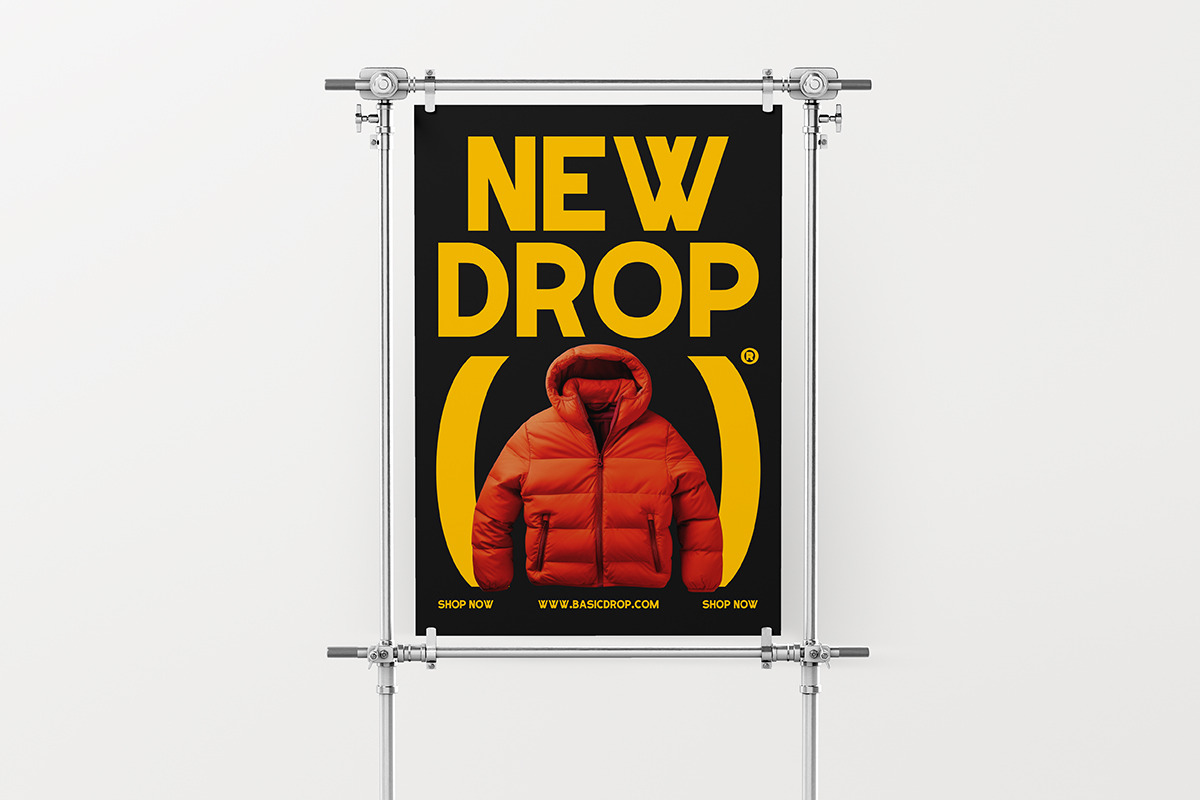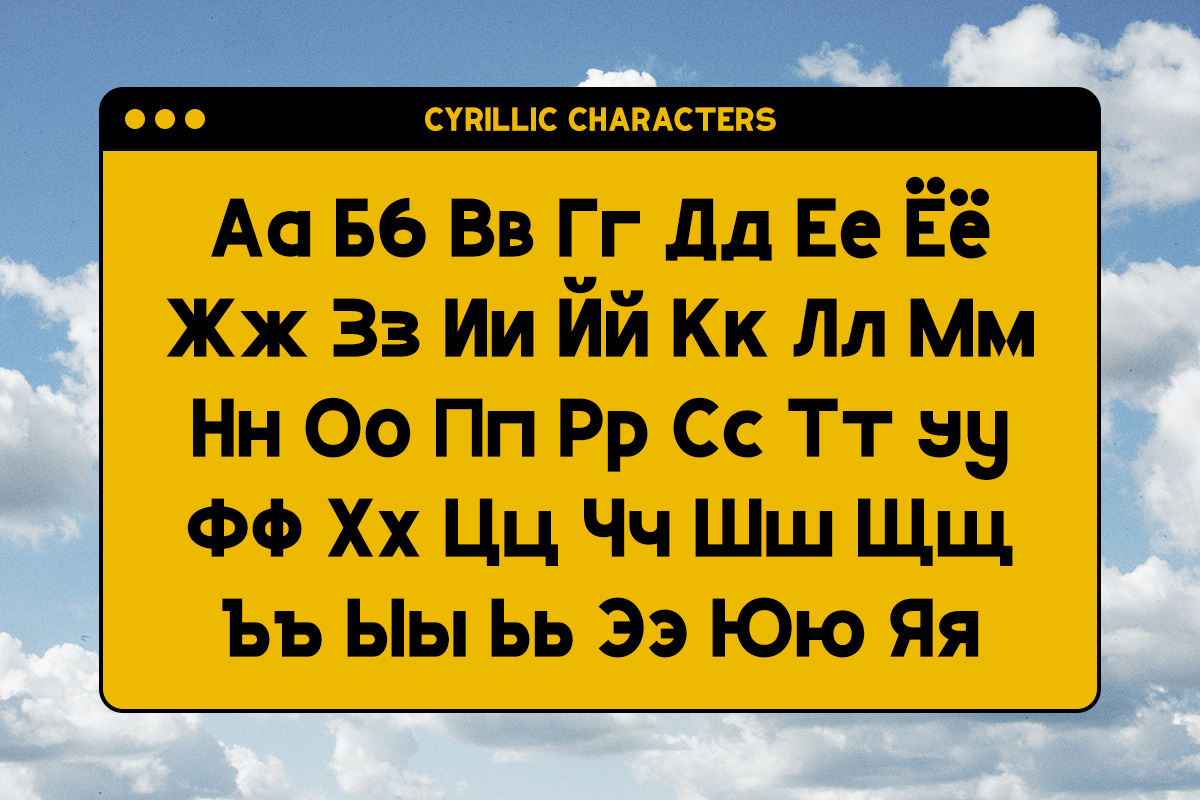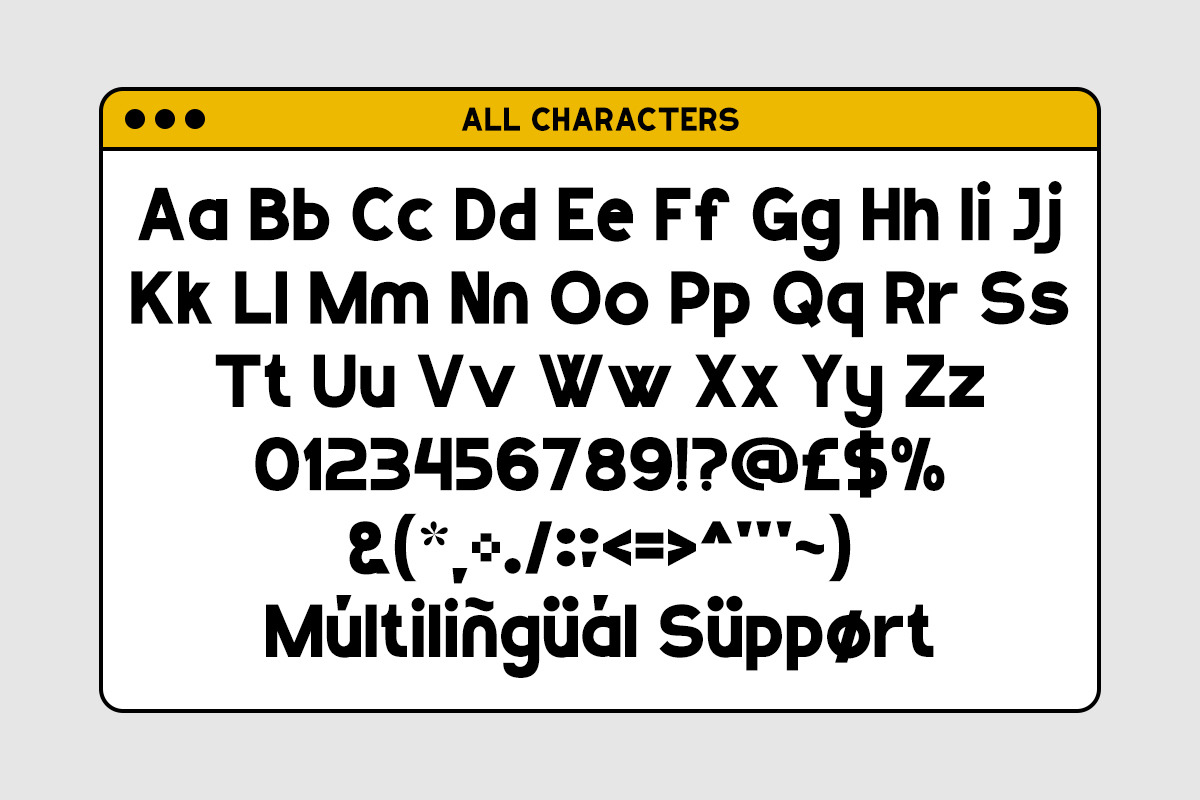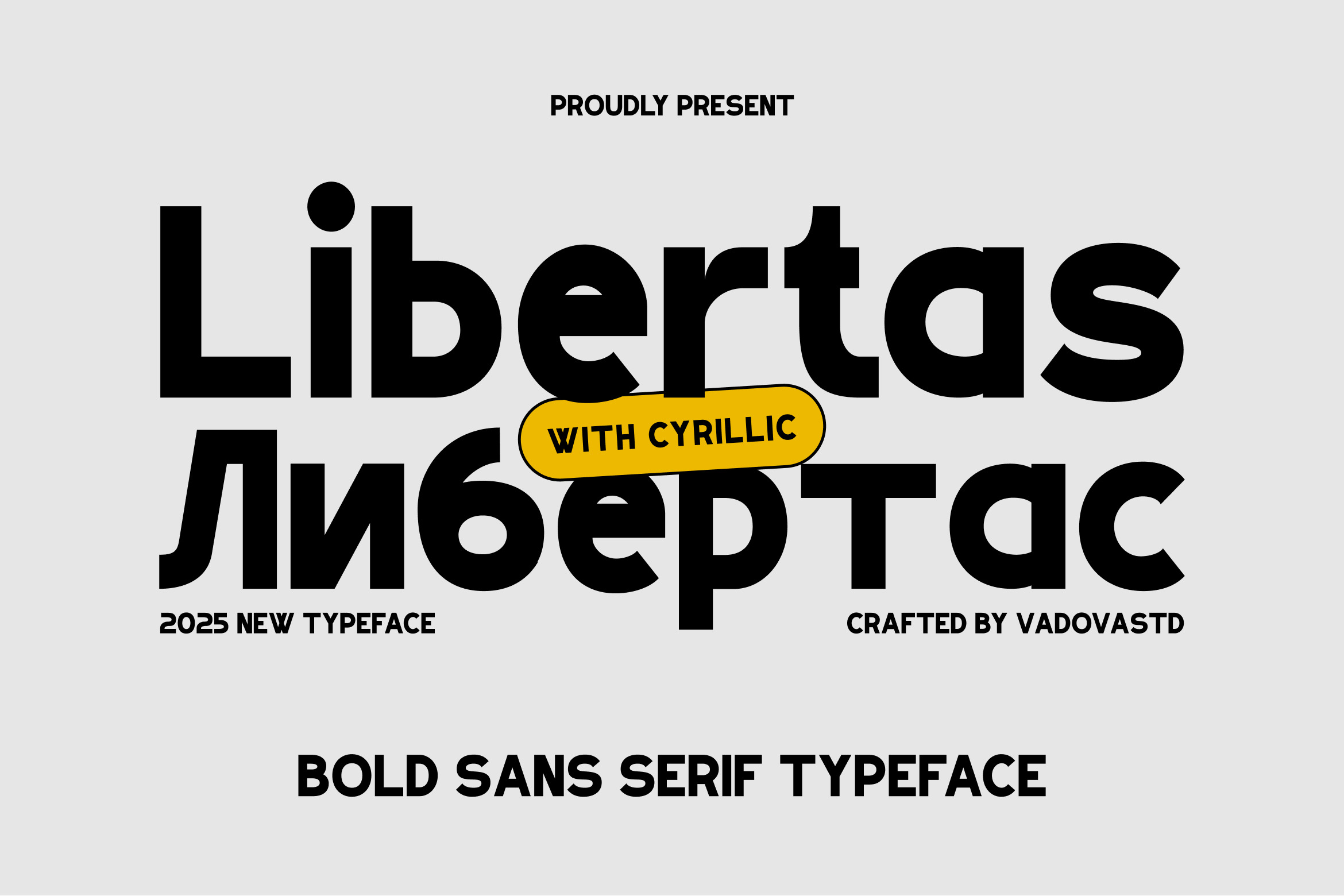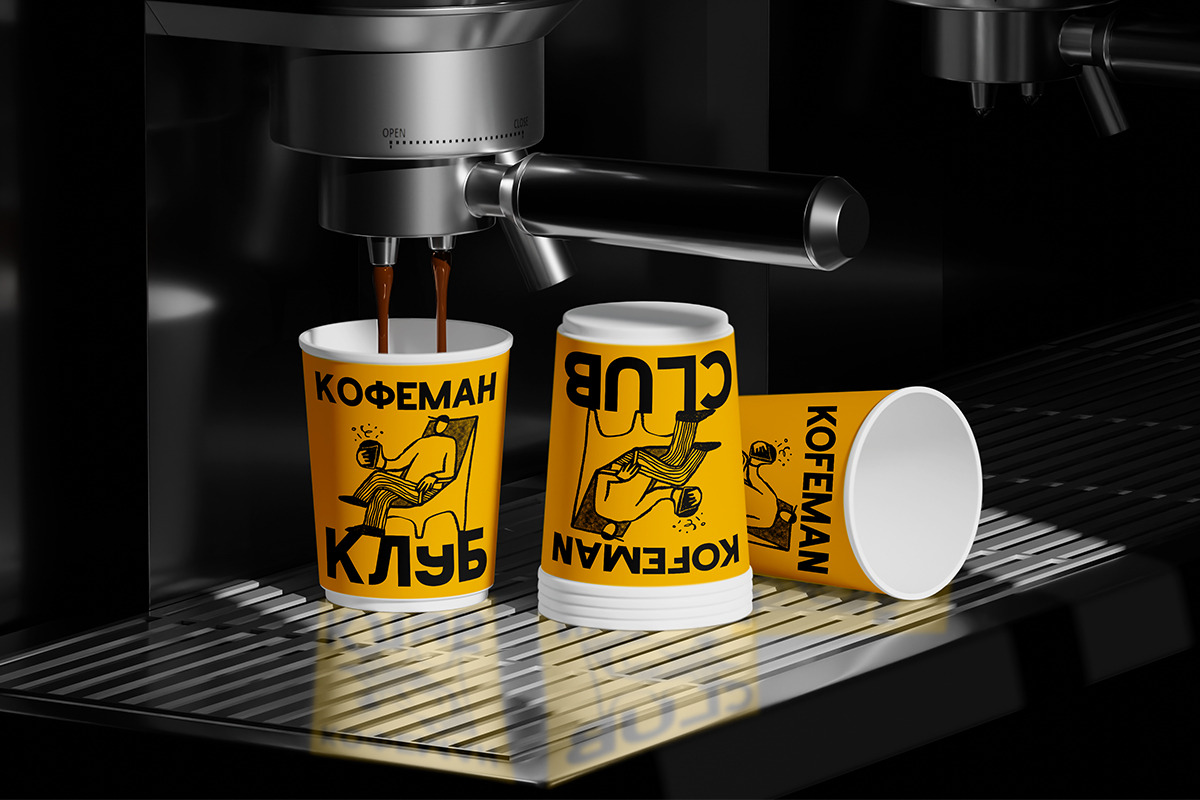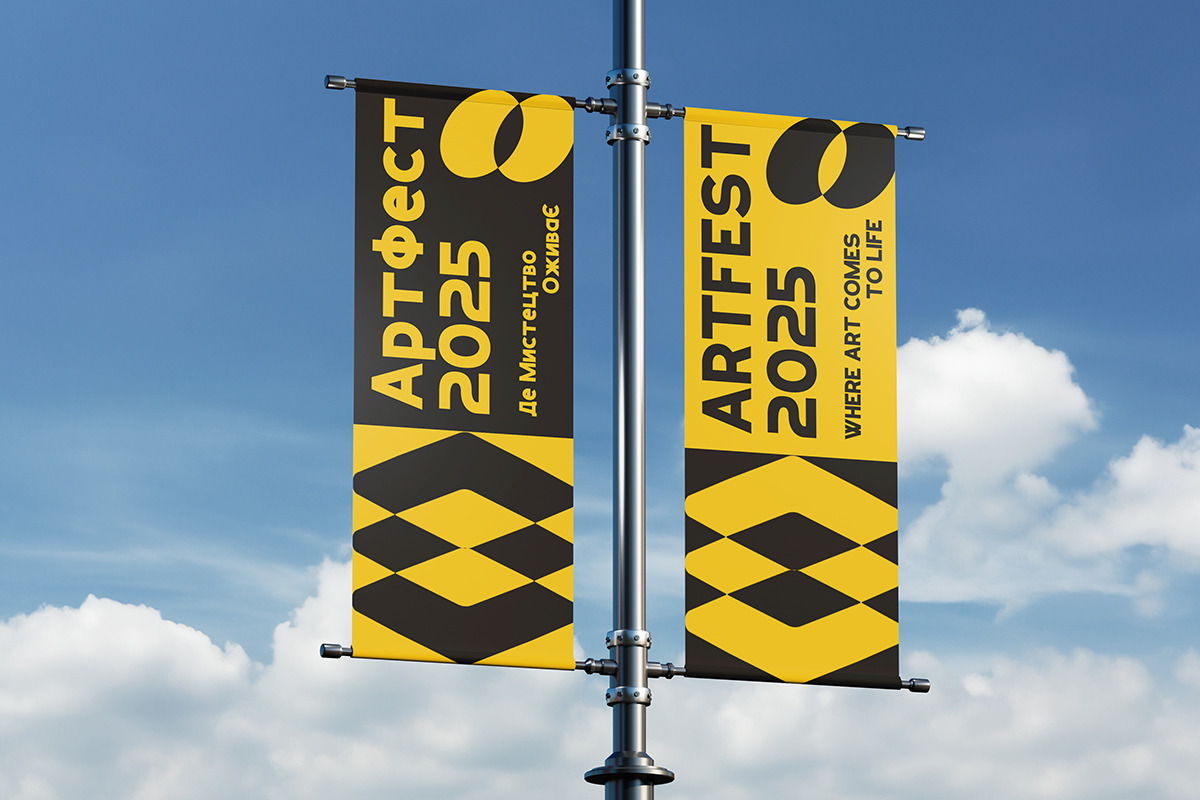
Libertas Bold Sans Serif Font
Libertas is a bold and modern sans serif font with sharp curves, confident shapes, and full Cyrillic support. Designed to make your headlines speak loud and clear, Libertas is a versatile workhorse that’s equally at home in editorial layouts, tech branding, poster design, or startup campaigns. Its geometric foundation and unique letterforms deliver a strong visual presence while maintaining readability across weights and sizes.
What makes Libertas stand out is its dual-script system. Supporting both Latin and Cyrillic alphabets, this typeface. Libertas includes uppercase, lowercase, numbers, punctuation, multilingual glyphs, and special characters all optimized for use in Adobe, Figma, Canva, and web-based tools.
- Modern bold sans serif with full Latin & Cyrillic support
- Strong geometric forms with soft curves and sharp edges
- Perfect for editorial, branding, tech, startup, and UI/UX
- Multilingual glyph support for global typographic applications
- Uppercase & lowercase with alternate Cyrillic characters
- Numbers, symbols, punctuation, and currency support
- Great for headlines, logos, packaging, signage, apps, and more
Relevance and Use Cases is global brands, bilingual projects, and multilingual typographic systems. Its characters blend a clean, modern attitude with just enough edge to make your design feel progressive and professional.
Whether you're designing for modern tech brands, editorial spreads, or corporate presentations, Libertas gives you the freedom to design without borders.